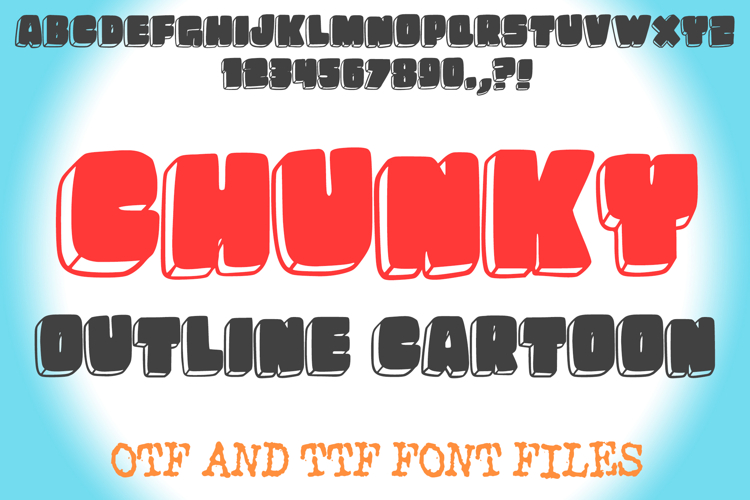
Chunky Outline Cartoon 3D Hand Drawn Lettering ABC Font Type
Bring your designs to life with a pop of playful dimension using Chunky Outline Cartoon 3D Font! This dynamic and eye-catching typeface combines a bold, chunky form with a distinct outline and an engaging 3D or shadow effect, creating a vibrant, cartoon-inspired look that instantly grabs attention.
Each character in Chunky Outline Cartoon 3D Font is meticulously designed to create an illusion of depth, giving your text a fun, inflated, and almost tangible presence. Perfect for lively headlines, comic book titles, whimsical branding, engaging social media posts, children's products, and retro-themed graphics, this font is your secret weapon for adding a charismatic and memorable flair to any project.
Whether you're crafting a playful logo, designing a game interface, creating vibrant posters, or custom apparel, this font offers a unique blend of cartoon charm and graphic impact. Its clear outline ensures readability, while the chunky, three-dimensional effect delivers a powerful visual punch.
If you're looking to infuse your designs with a sense of playful energy, nostalgic charm, and a bold, illustrative style, Chunky Outline Cartoon 3D Font is your ideal choice. Download it today and watch your creativity jump off the screen!